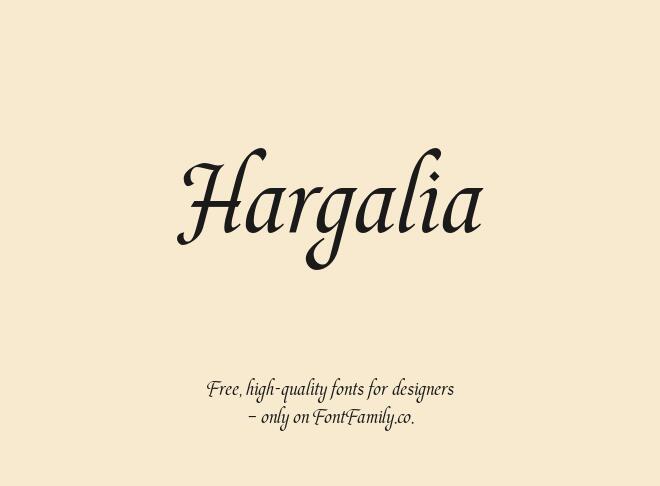
Hargalia Font
Hargalia Font is a beautifully crafted script font, designed by Daniel Hernandez. With its handwritten and elegant style, Hargalia Font is perfect for a wide range of design projects, from wedding invitations and greeting cards to branding and logo design. Its decorative elements and unique character set it apart from other script fonts, adding a personal touch to any design. Hargalia Font is versatile, easy to use, and a great choice for designers looking to add a touch of elegance and sophistication to their work. Its free license for personal use makes it an excellent choice for those on a budget, without compromising on quality and style. Download Hargalia Font today and elevate your design projects to a new level of elegance and sophistication.